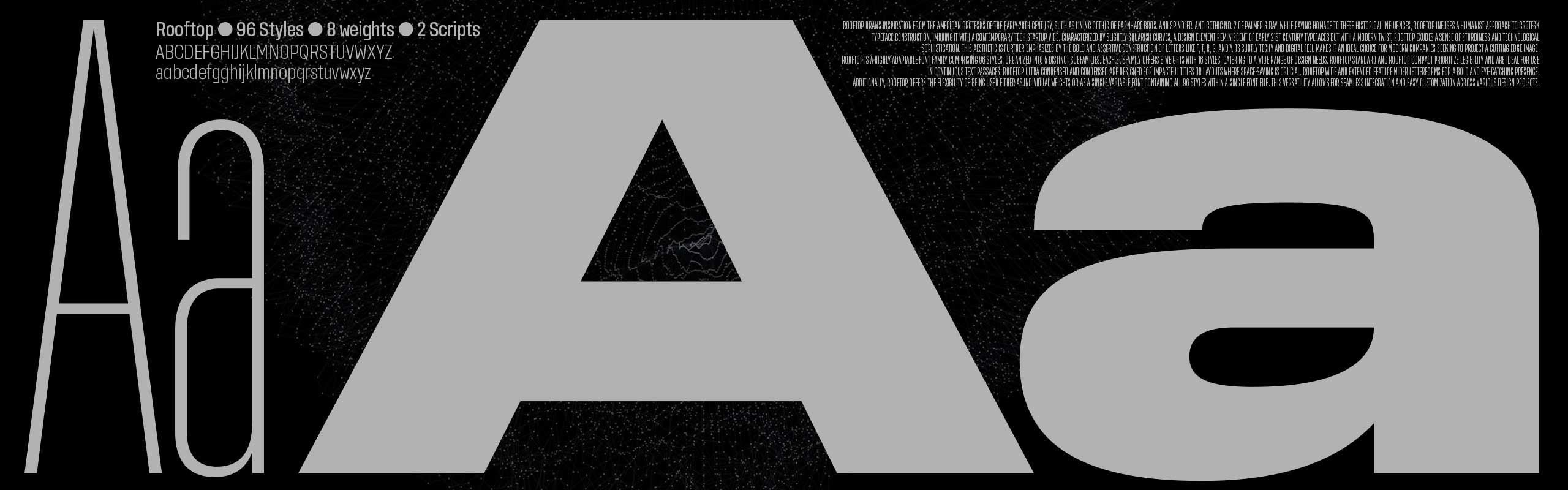
What happens if you place American humanist grotesques of the 20th century (such as Lining Gothic) into the world of tech startups of the 21th? — You will get a collection of slightly squarish forms, squared ovals, brutal design of f, t, r, g, y, — that’s Rooftop’s answer.
What was once a collection of 2 families has now evolved into a highly adaptable collection comprising 99 styles organised into 8 distinct typefaces. Each of the new families offers 8 weights and 16 styles, catering to a wide range of design needs. Rooftop Standard and Rooftop Compact prioritise legibility, making them ideal for continuous text passages. Rooftop Ultra Condensed and Condensed are designed for impactful titles or layouts where space saving is crucial. Rooftop Wide and Extended feature wider letterforms for a bold and eye-catching presence.
Rooftop is available as a three-axis variable font, containing all 96 styles within a single file.